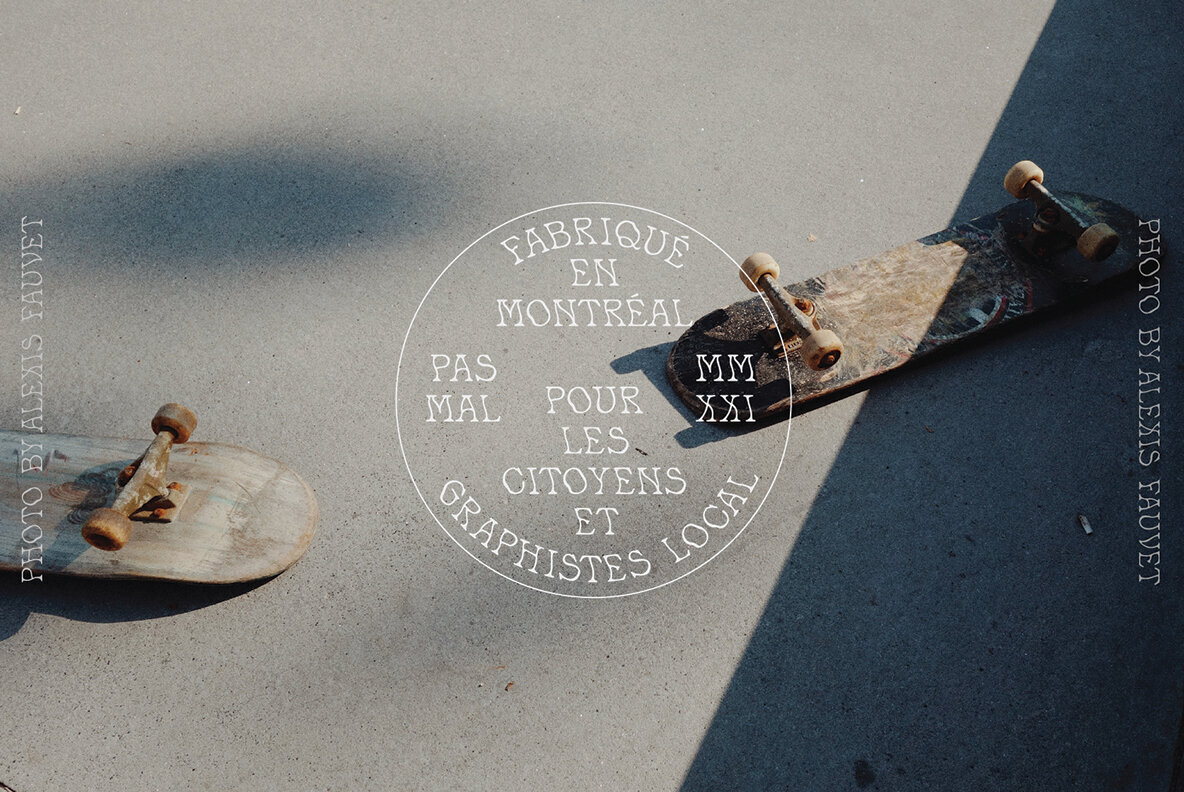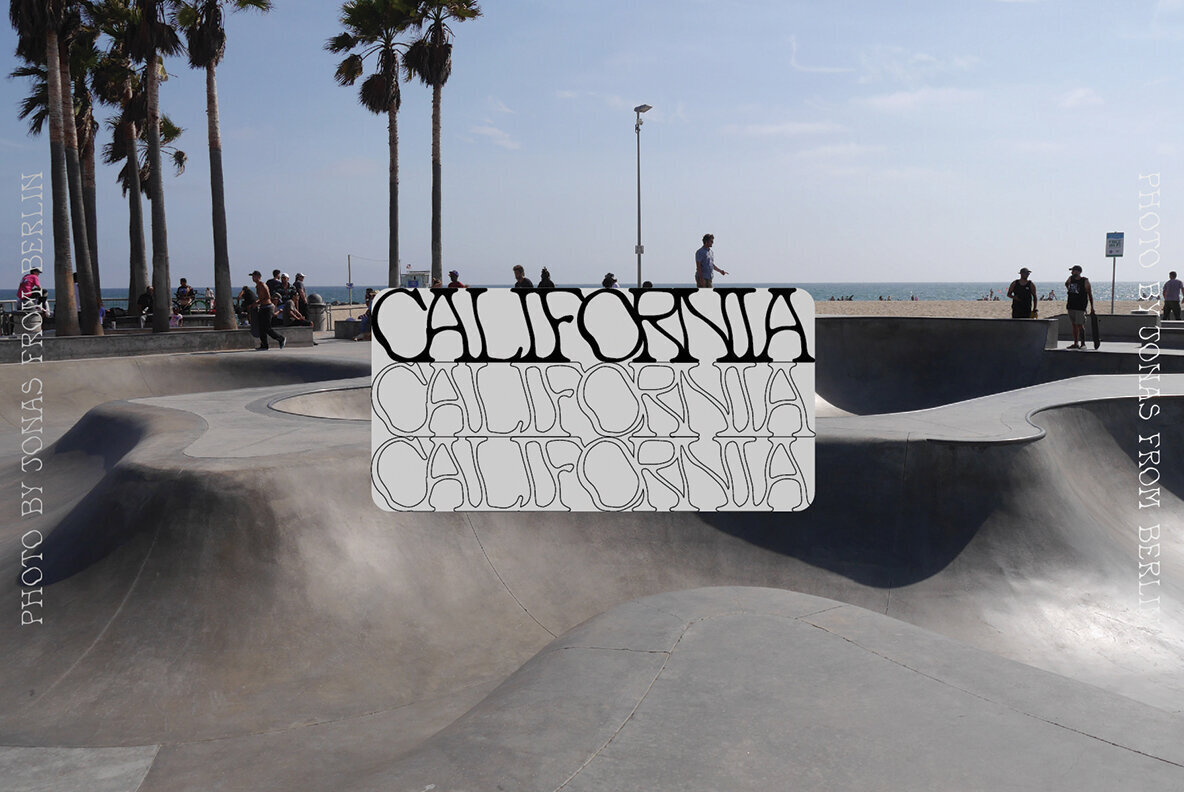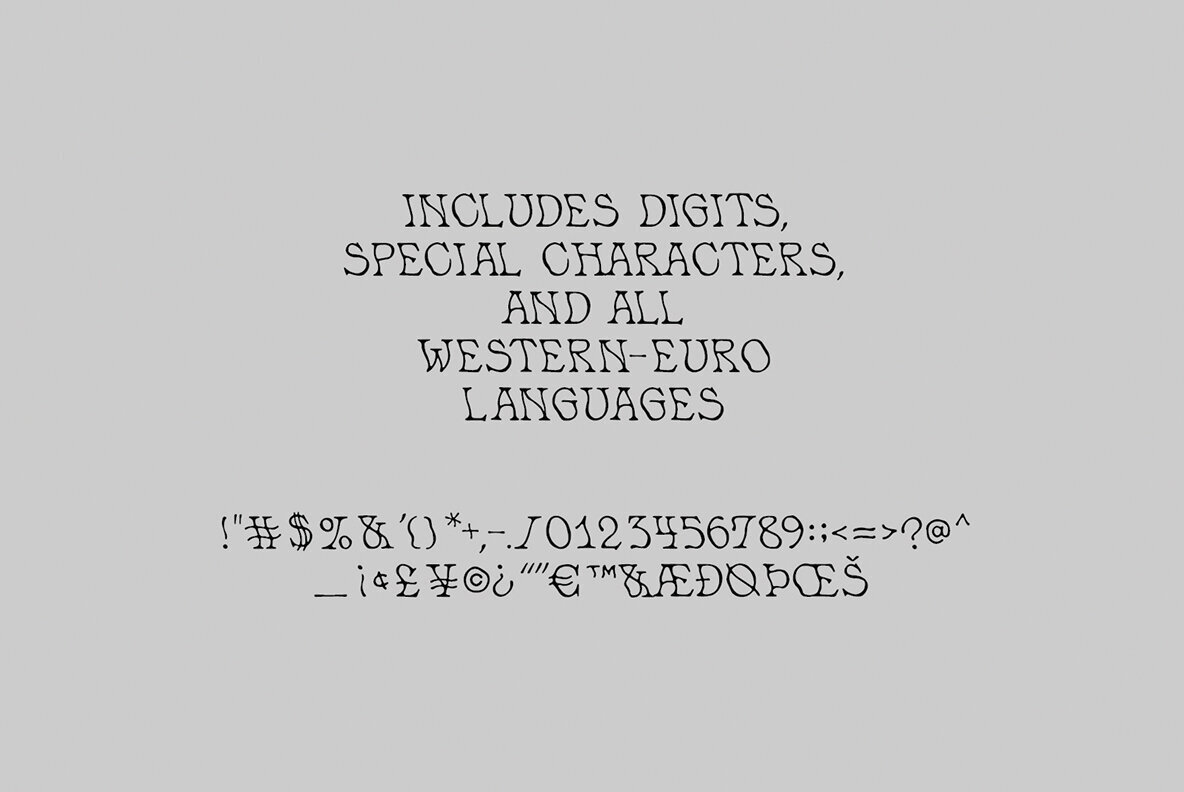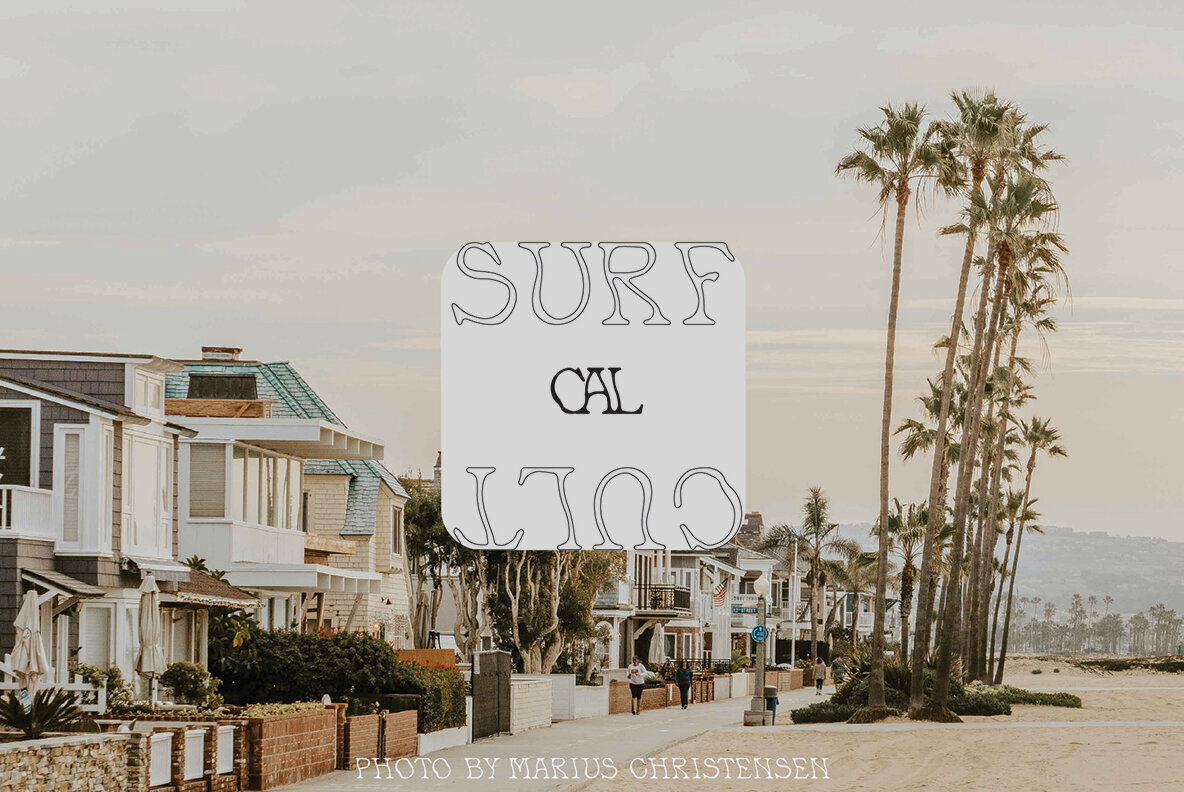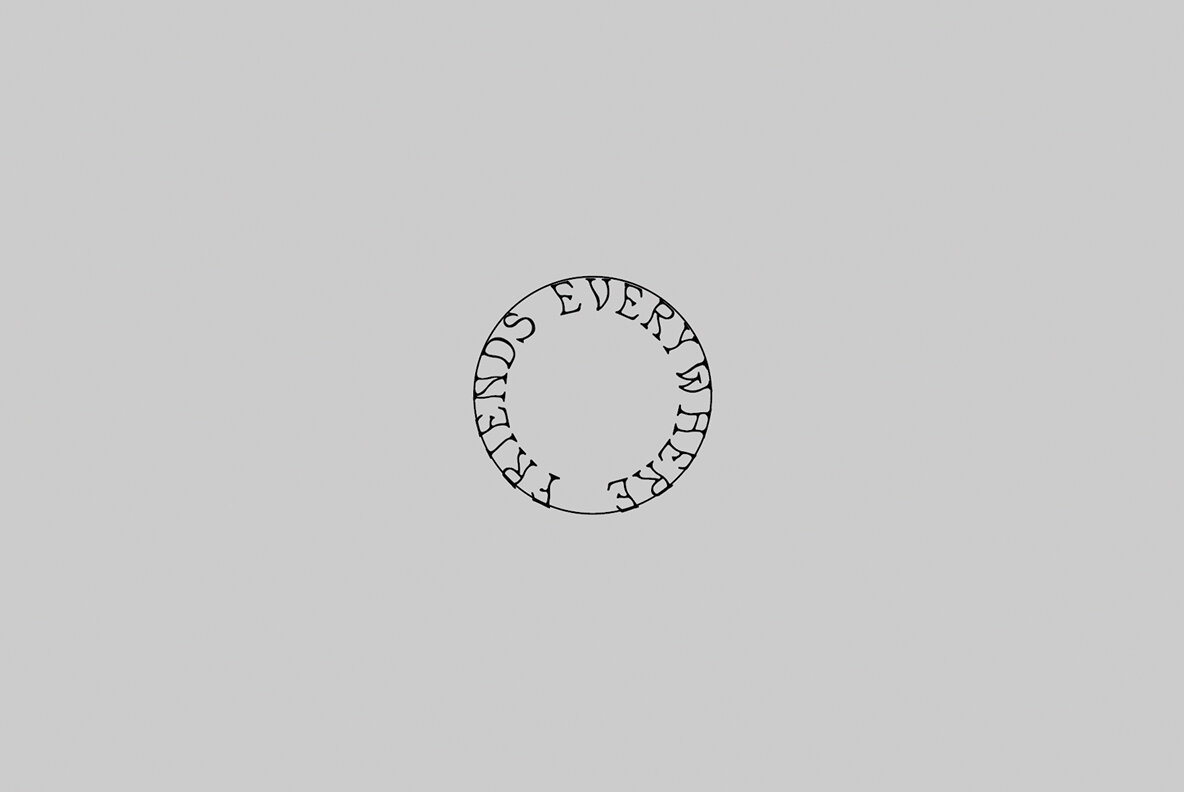
MC Surfside Font
MC Surfside
Dive into the dynamic world of typography with MC Surfside, a tubular typeface crafted for those seeking originality in their projects. Its unique design, reminiscent of coastal waves, brings a refreshing twist to your typography toolbox, ideal for radical creative ventures.MC Surfside: Tubular Typeface for Exceptional Designs
Navigate your next radical project with the unique charm of MC Surfside, where waves meet words in a seamless blend.